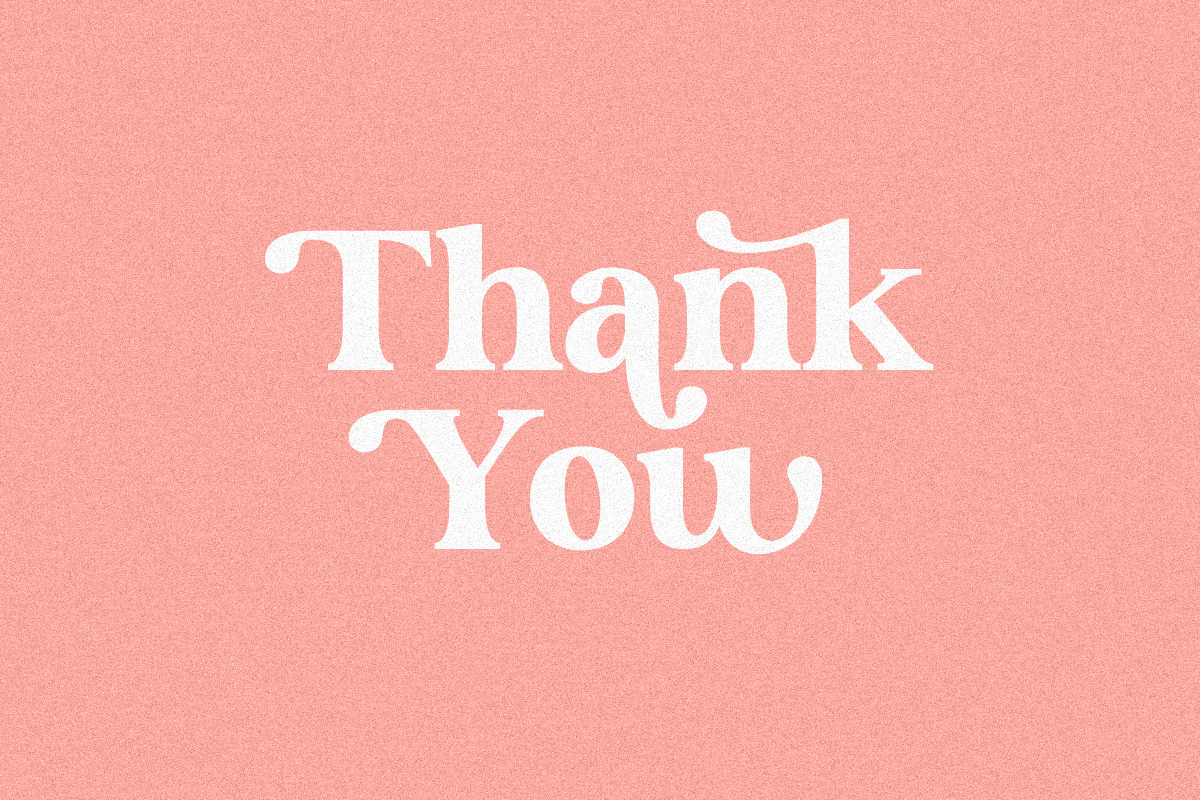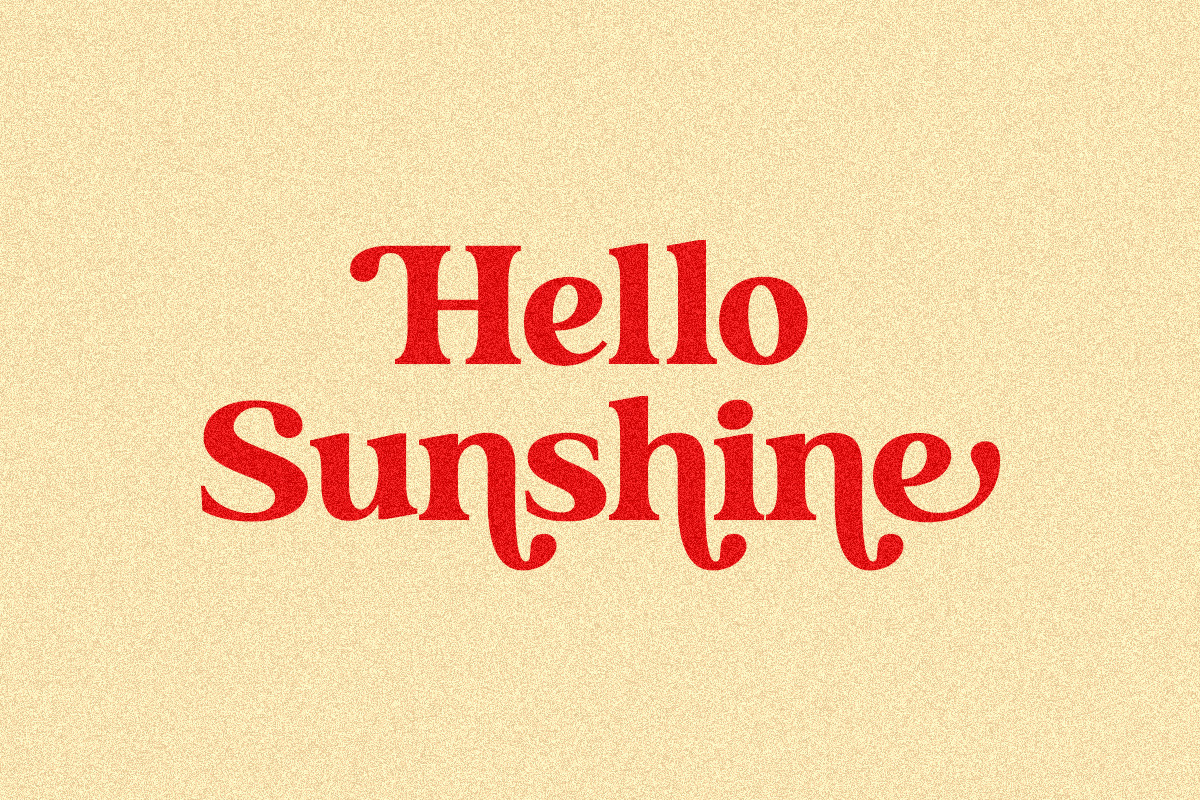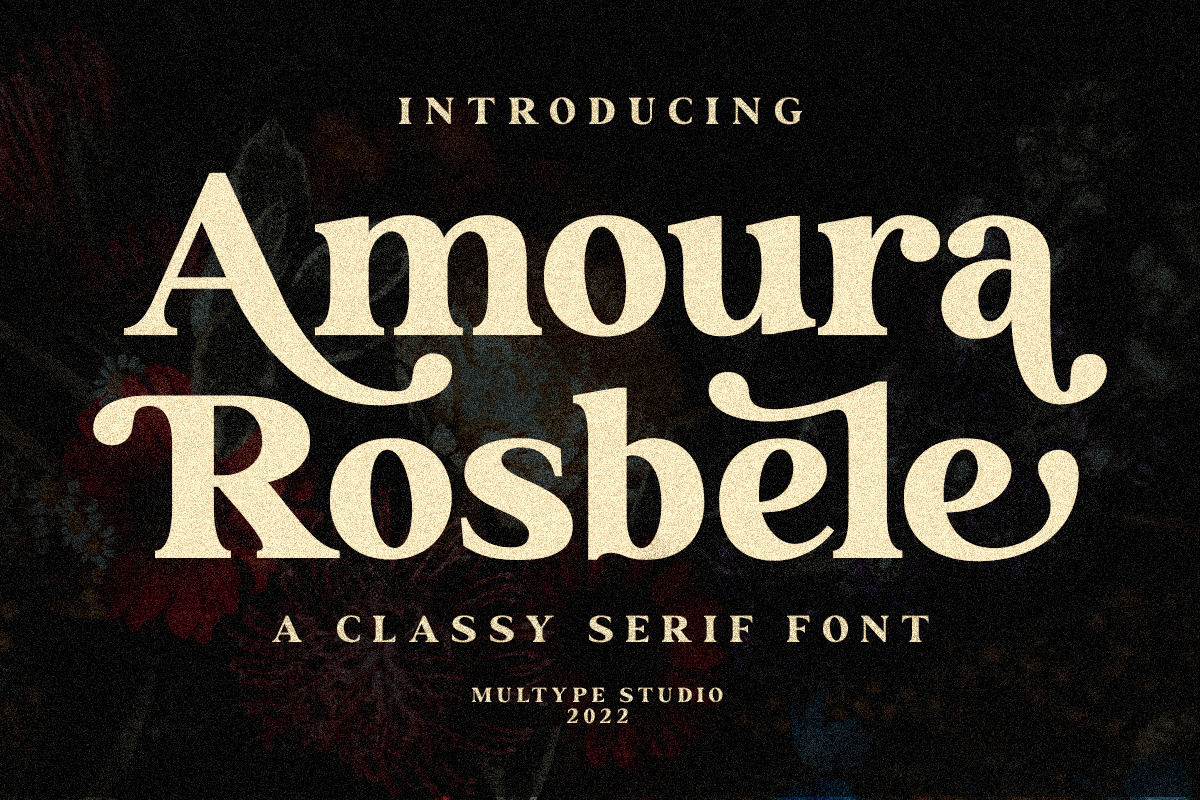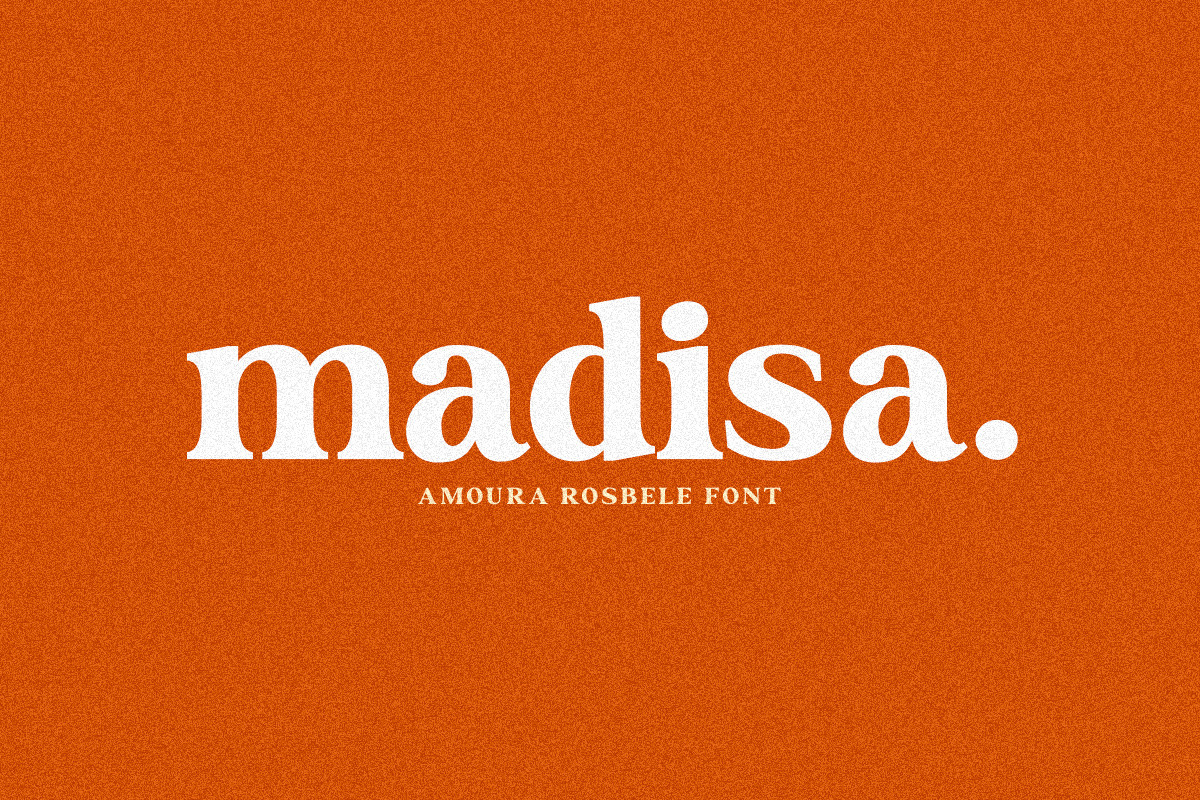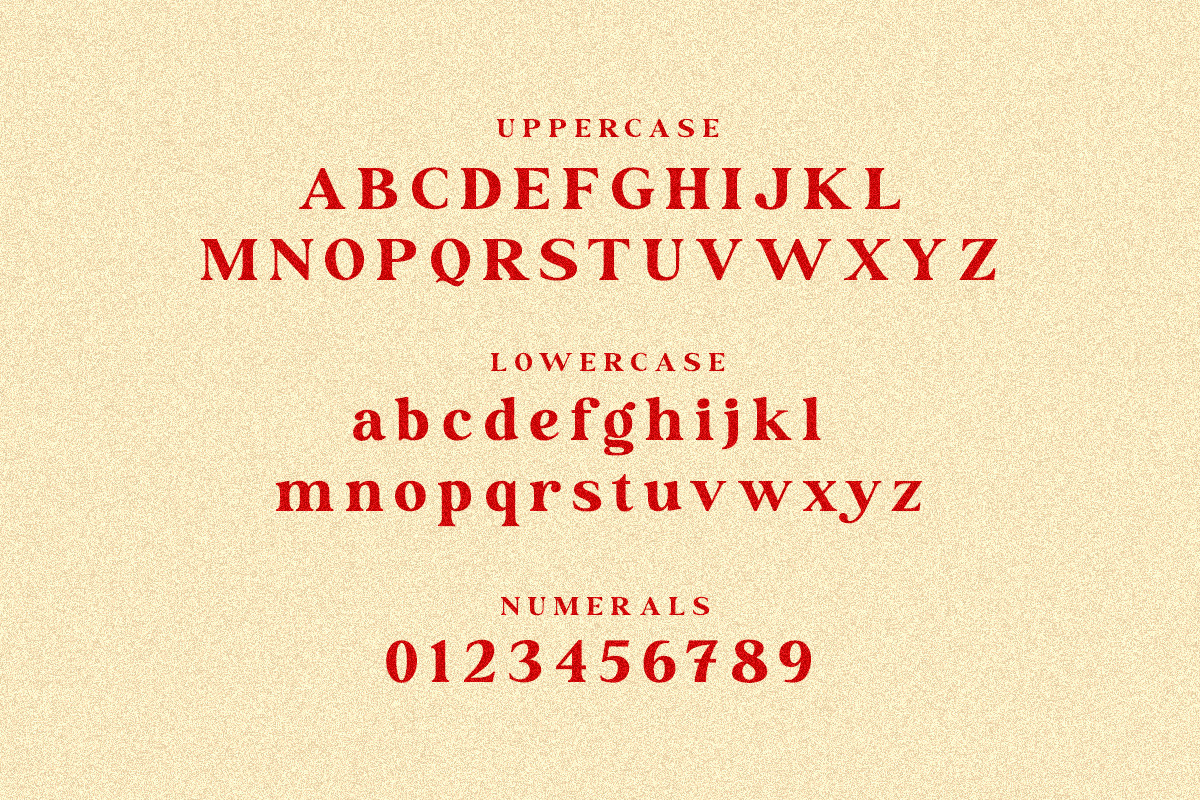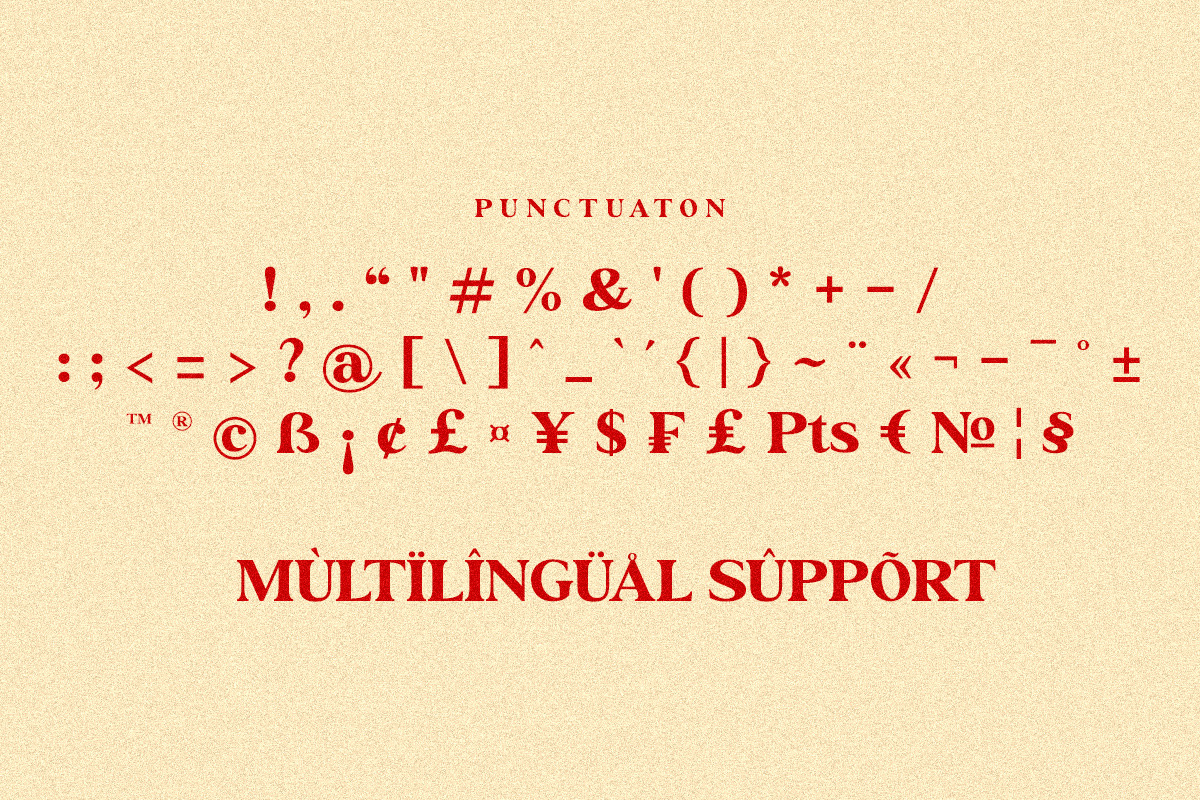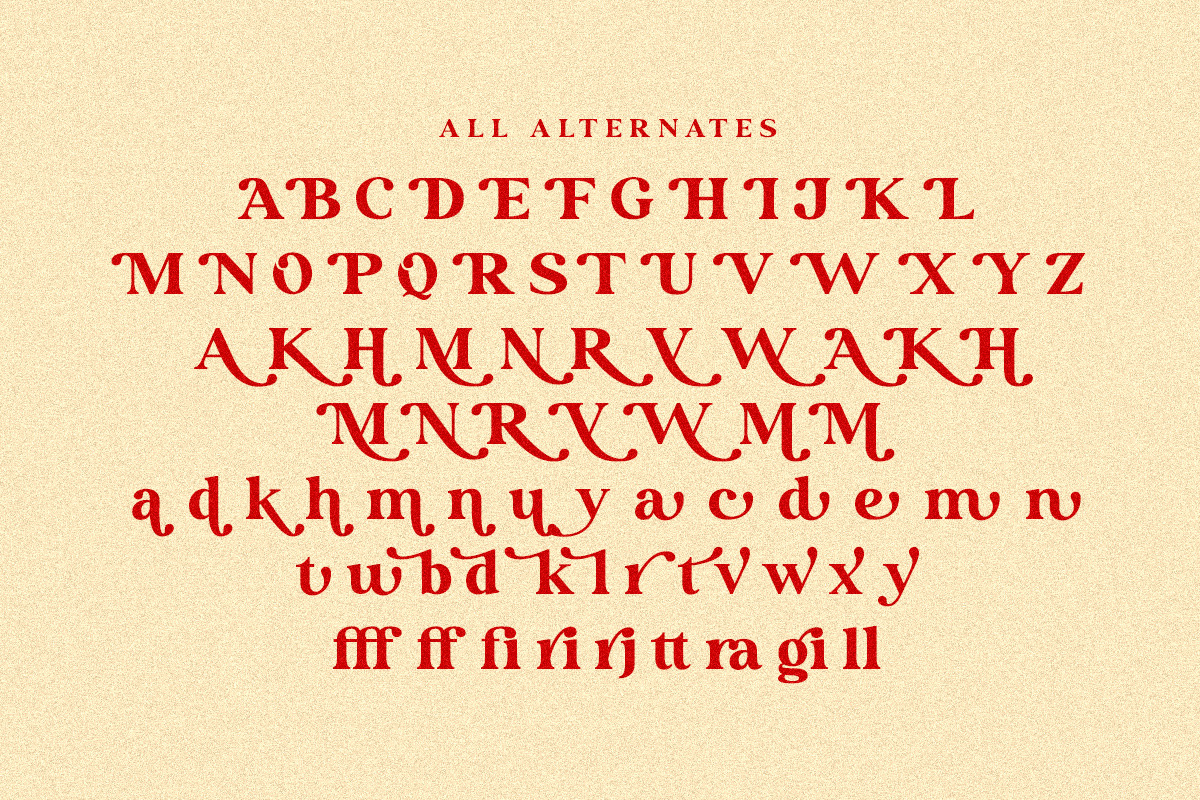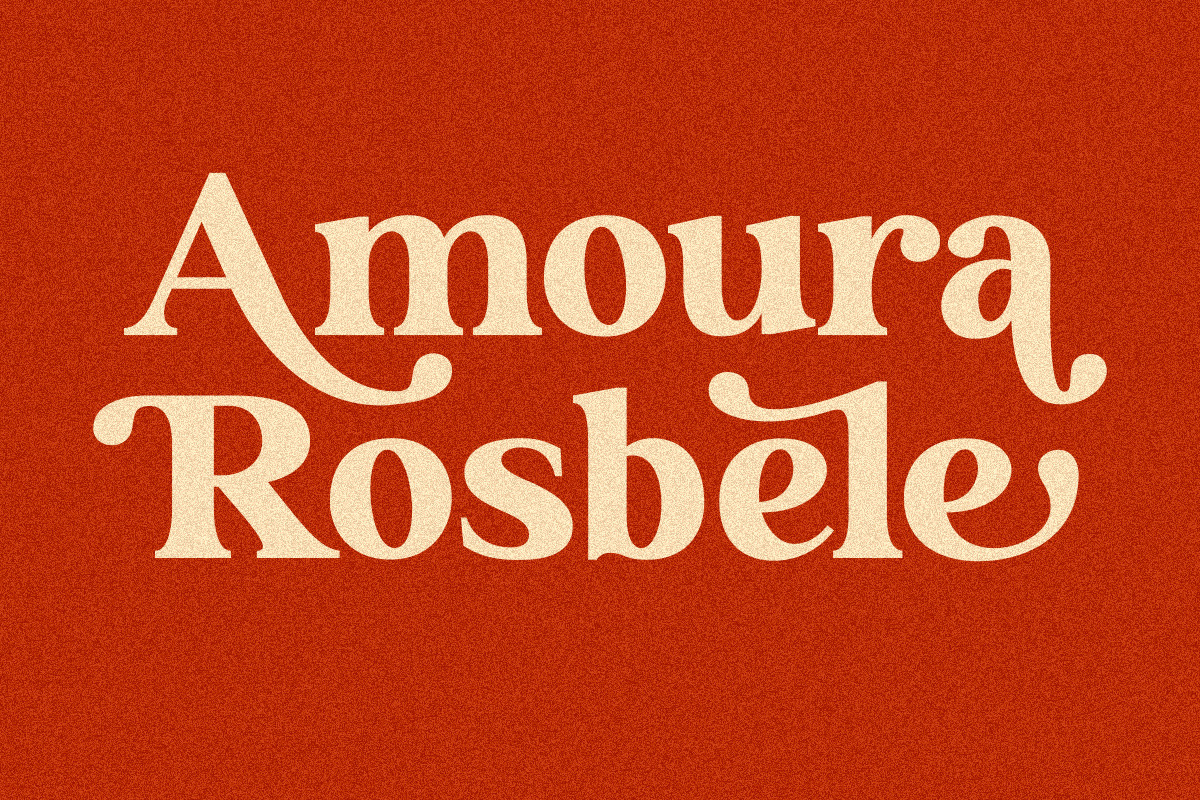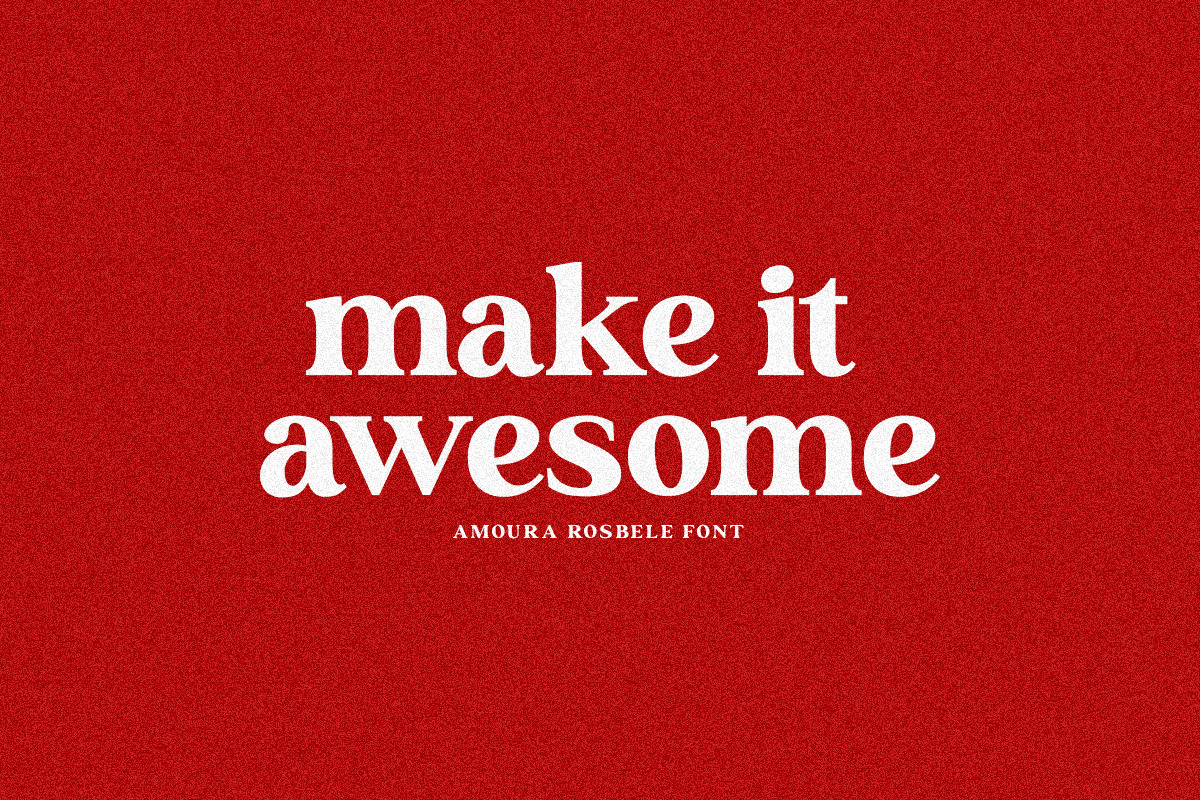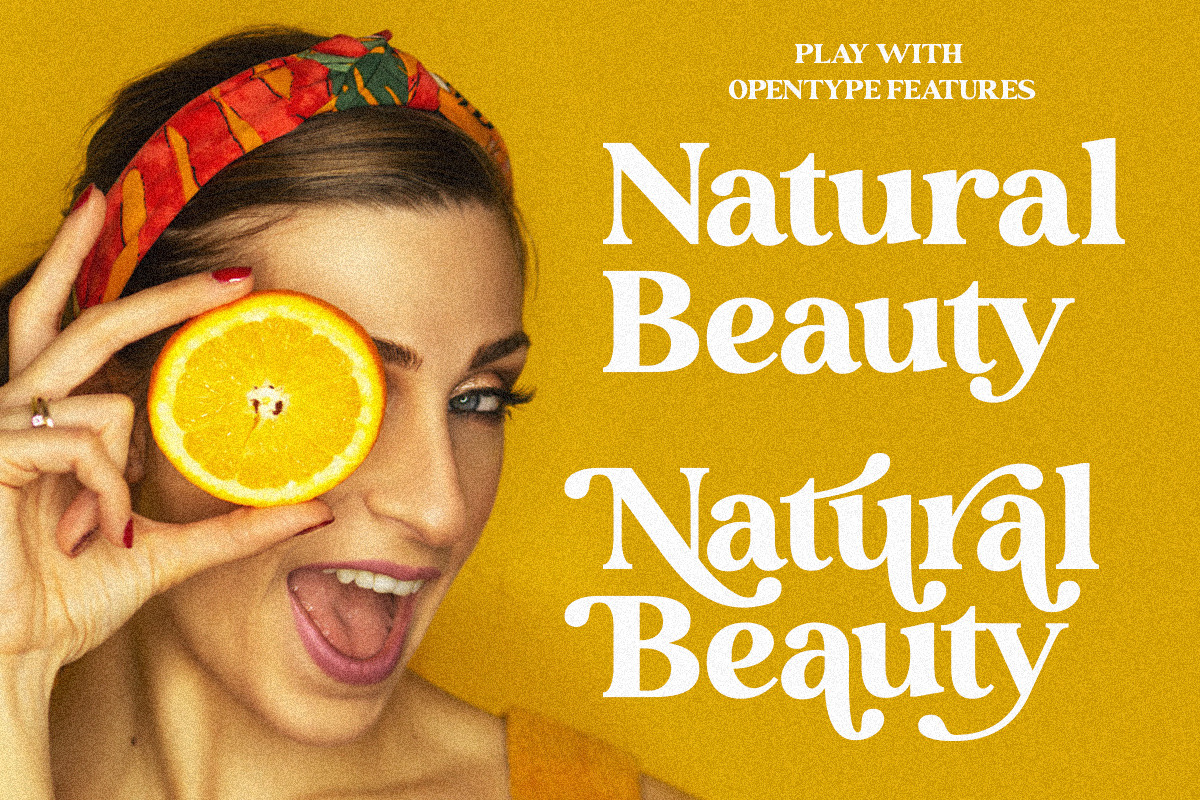
Amoura Rosbele Modern Serif Font
Amoura Rosbele is a modern and classy serif font. Amoura Rosbele is perfect for branding, logos, social media, advertisements, product packaging, watermark, invitation, stationery, tshirt, prints, posters and more.
Uppercase & Lowercase Stylistic Alternate Ligature Numbers & Symbols Works on PC / Mac Simple installations Accessible in the Adobe Illustrator, Adobe Photoshop, Adobe InDesign, even work on Microsoft Word PUA Encoded Characters, Fully accessible without additional design software. Multilingual support